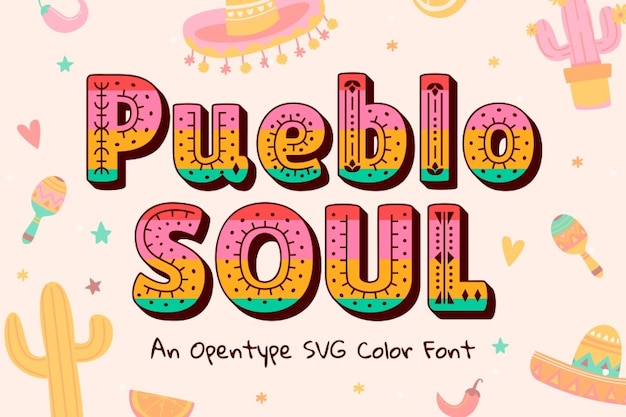
Pueblo Soul
Pueblo Soul Font
Pueblo Soul is a vibrant, tribal-inspired font that captures the essence of Mexican culture. Its bold letterforms, infused with traditional Mexican patterns, evoke the rich heritage of Mexico. Perfect for Cinco de Mayo celebrations, cultural projects, or festive branding, Pueblo Soul adds a colorful, energetic touch to any design, celebrating heritage and soul.